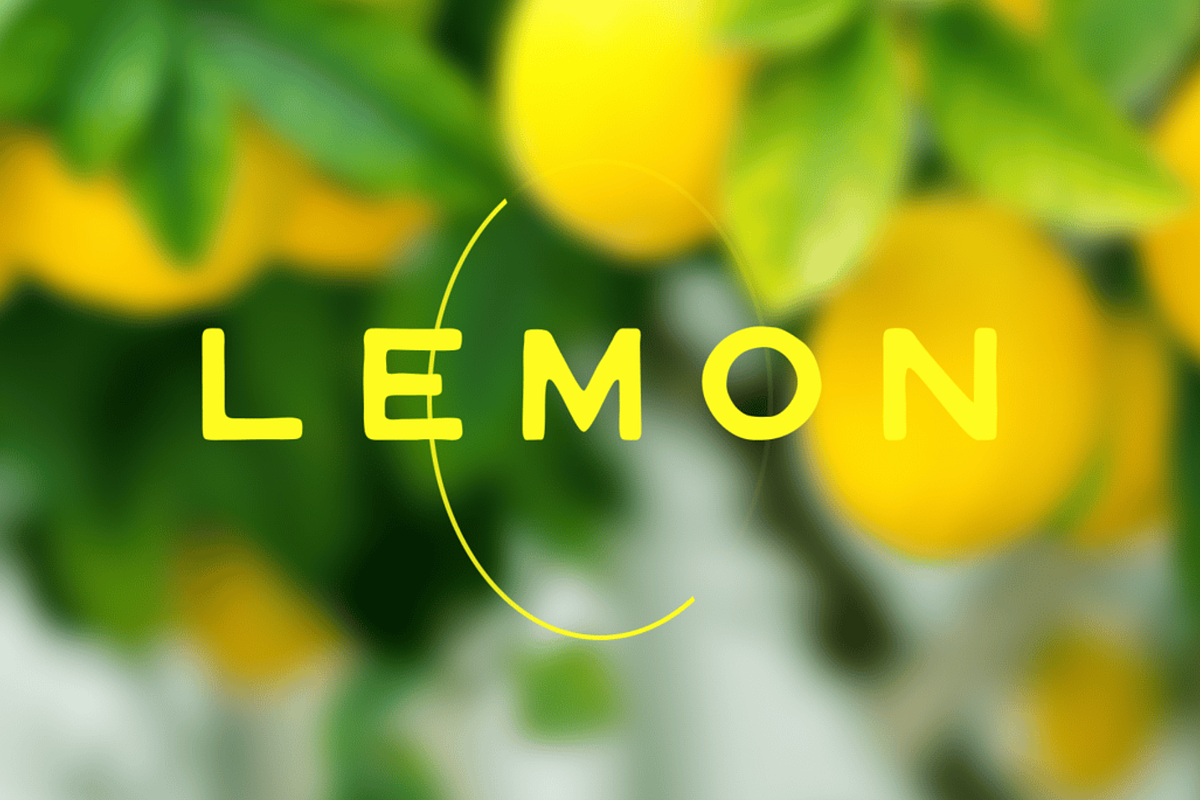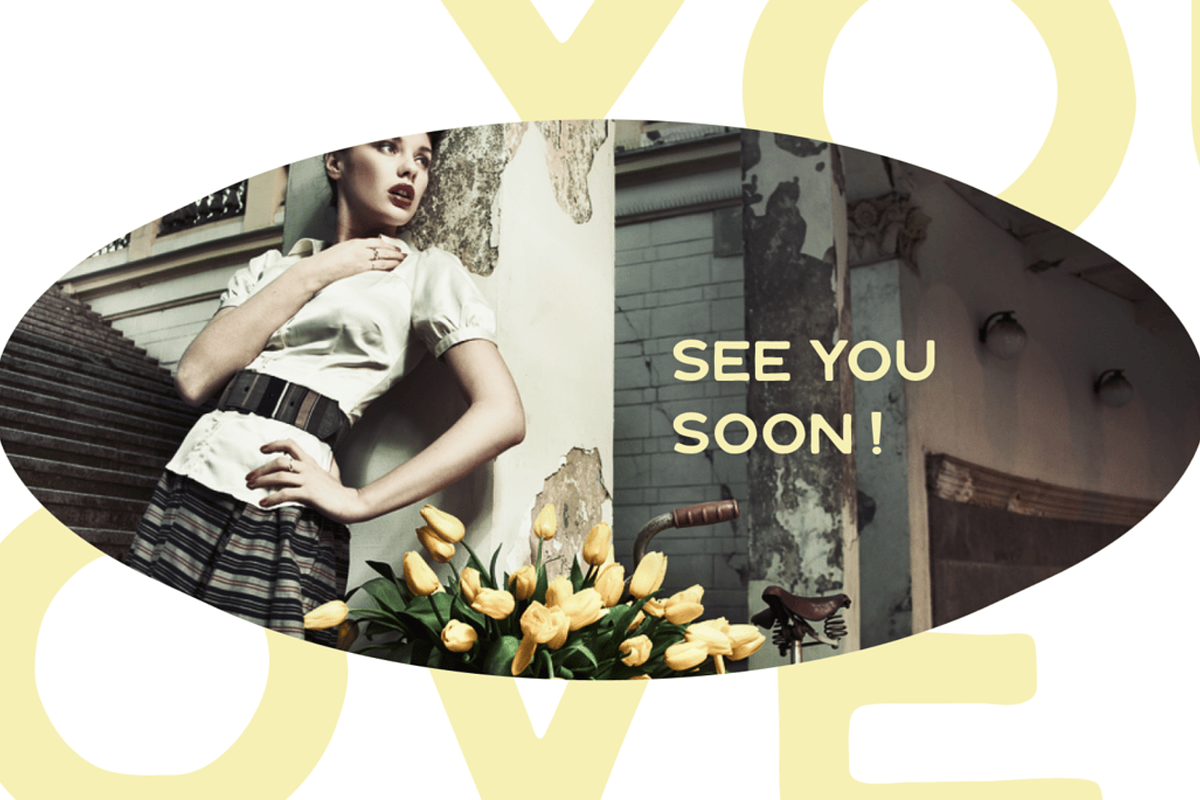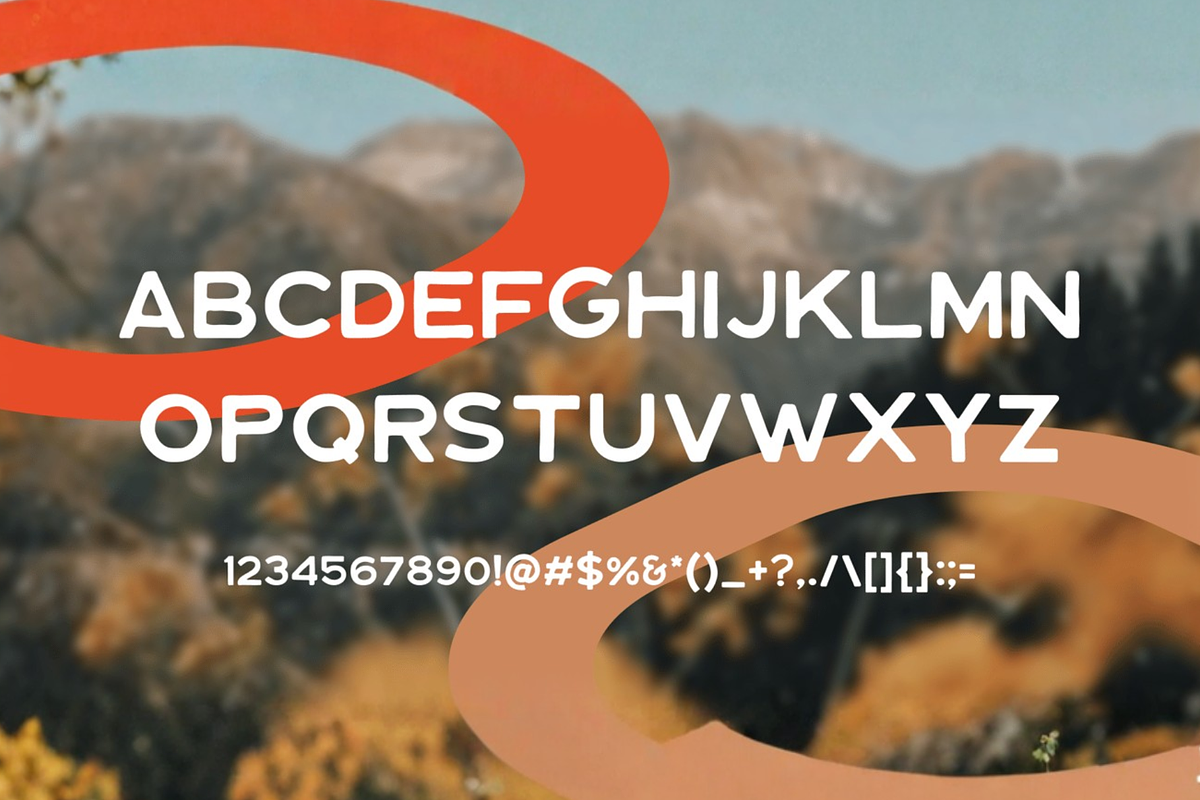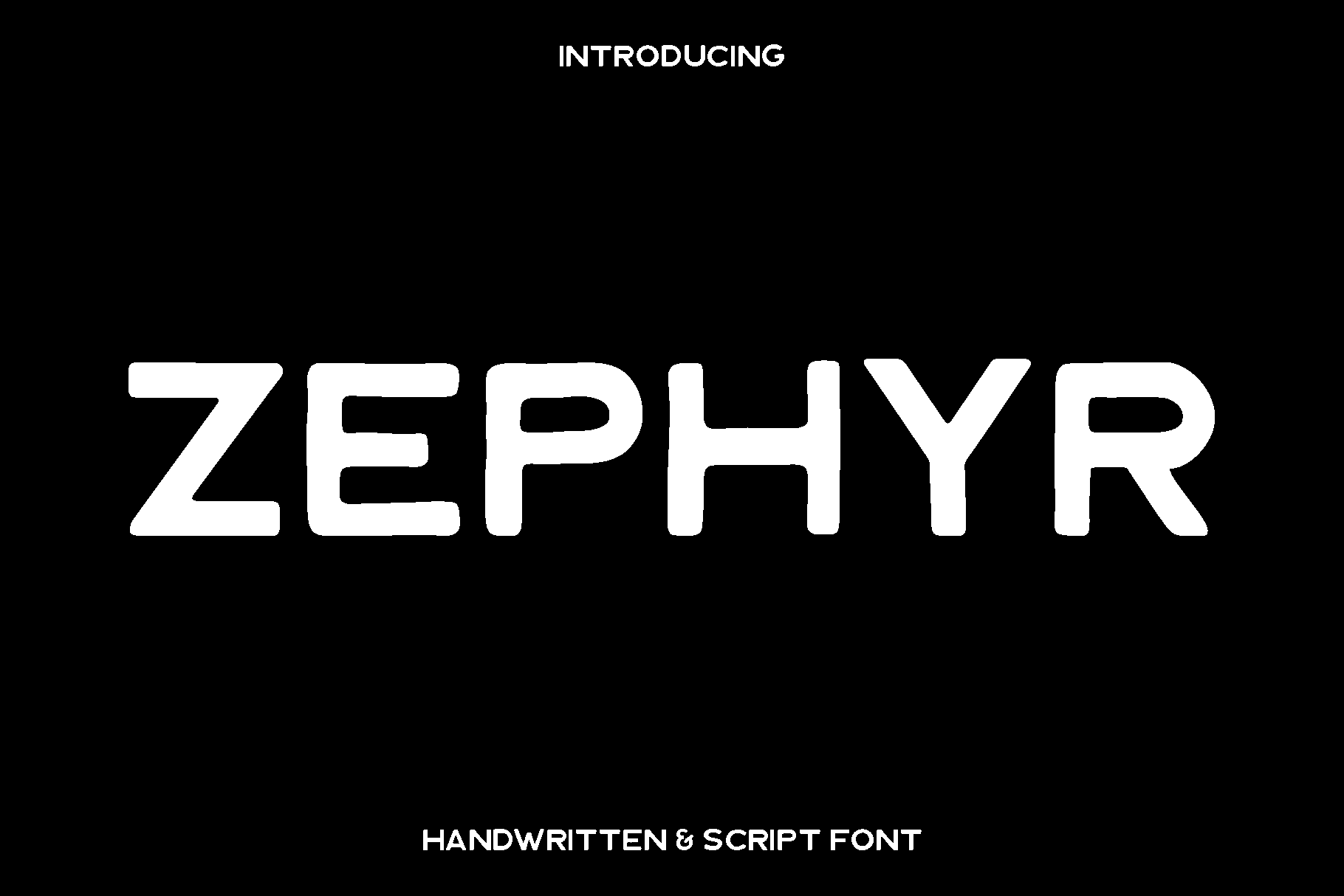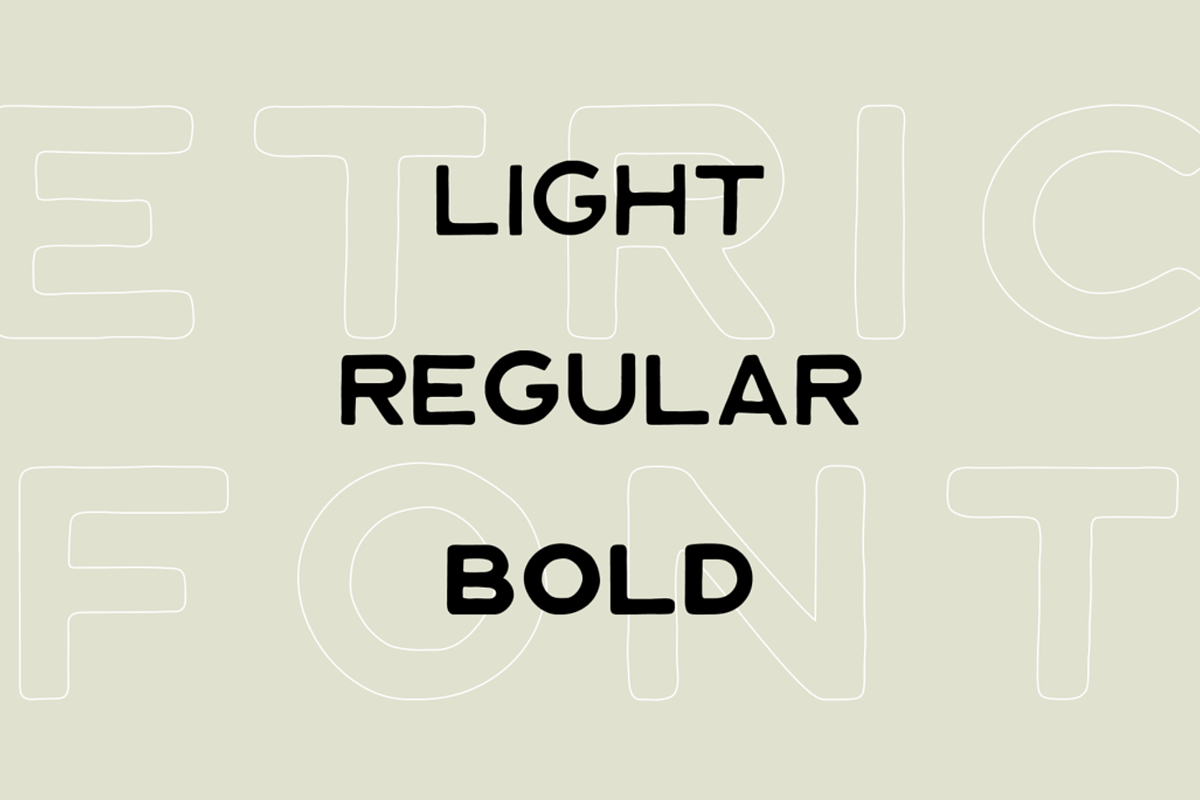
Zephyr - Handwritten Font
Zephyr is a charming handwritten font infused with vintage and retro character. Its rounded letterforms and subtle roughened texture give every word a handcrafted, nostalgic feel, making it perfect for designs that aim to evoke warmth and personality. Zephyr brings a unique blend of casual elegance and retro flair, creating a typeface that feels both playful and timeless.
This font shines in projects where a handcrafted, vintage aesthetic is desired. Zephyr is ideal for large headlines, posters, packaging, greeting cards, logos, and branding that require a retro touch. Its expressive forms and textured details ensure that every design stands out with style, capturing attention while evoking a sense of nostalgia.
Zephyr offers versatility across creative projects with four distinct styles: Light, Regular, Medium, and Bold. Whether used for display purposes or artistic compositions, this font allows designers to explore a variety of typographic expressions while maintaining consistency and visual appeal. Zephyr transforms simple text into a captivating retro statement, making it a must-have for vintage-inspired designs.
Zephyr Retro Handwritten Font Features: • 4 styles: Light, Regular, Medium, Bold • Rounded, textured letterforms with vintage charm • Perfect for large headlines and display designs • Ideal for retro branding, posters, packaging, and creative projects • Adds handcrafted personality and nostalgic appeal